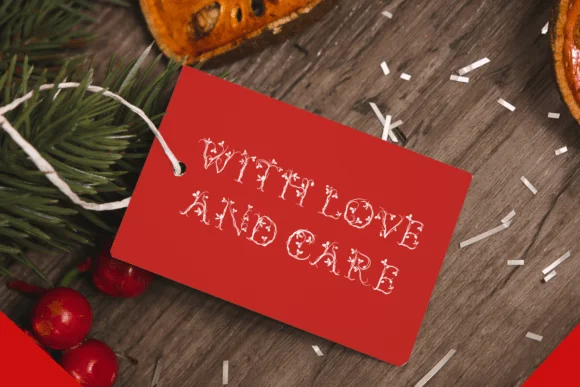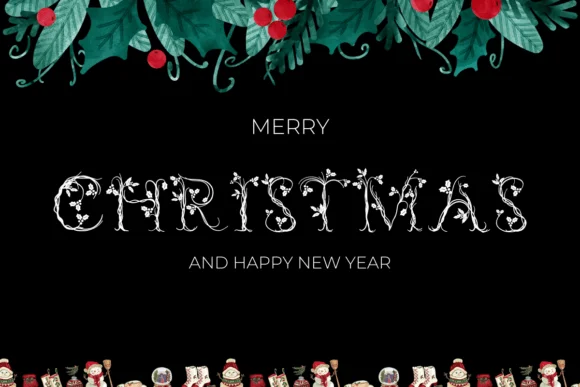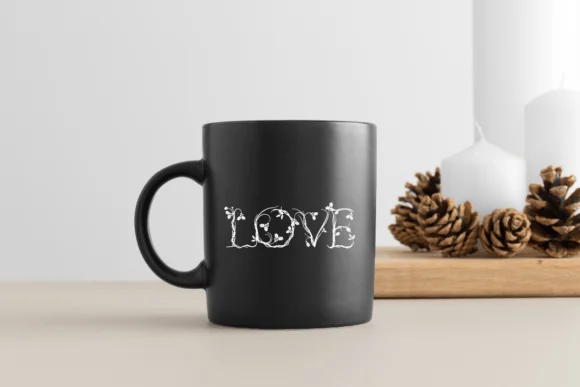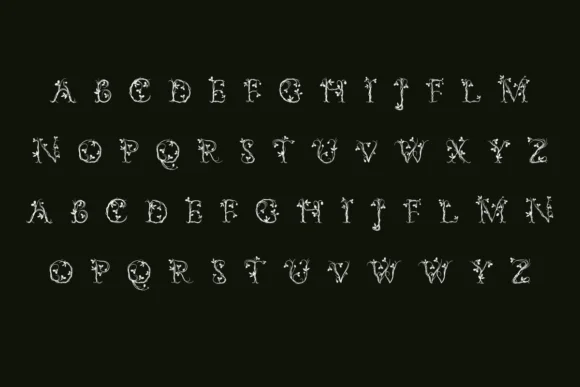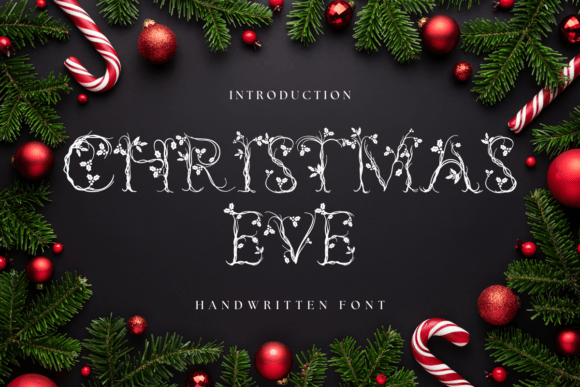
Christmas Eve Font
This atmospheric font is perfect for Christmas Eve candlelight services, midnight Christmas celebrations, last-minute holiday preparations, Christmas Eve family traditions, nocturnal Christmas storytelling, evening Christmas concerts, twilight holiday gatherings, Christmas Eve dinner menus, late-night Christmas activities, and serene Christmas Eve messaging.
Christmas Eve Font is exciting because it embodies the sacred stillness and profound anticipation that fills the air on the most magical night of the year, when time seems suspended between preparation and celebration. The font features hushed, reverent letterforms with gentle twilight qualities that capture the peaceful silence of Christmas Eve evening, incorporating delicate curves and soft edges that mirror the quiet excitement of families gathering for their most treasured holiday traditions. Each character showcases the contemplative beauty of a night filled with wonder, featuring subtle details and dreamy flourishes that reflect the ethereal glow of candles flickering in windows and the gentle snowfall that often graces this holy evening. The design perfectly captures that precious moment when all the world holds its breath, waiting for Christmas morning to arrive.
The Christmas Eve Font family includes reverent style variations: Regular, Bold, Light, Silent, and Holy versions. The collection features special evening elements including candlelight accents, starry details, peaceful flourishes, and serene ornamental touches. Additional components include twilight borders, silent frames, contemplative decorations, and sacred ornamental designs that enhance the font's Christmas Eve appeal and create cohesive peaceful holiday themes.
Churches and contemplative celebrants will find Christmas Eve Font to be a perfect tool for creating meaningful communications that honor the sacred tradition and peaceful beauty of Christmas Eve observations. This reverently crafted font transforms ordinary Christmas Eve text into meditative expressions that capture the profound significance and quiet wonder of this most holy night.
The typeface includes comprehensive character support with contemplative styling that maintains excellent readability while conveying the peaceful reverence and sacred anticipation of Christmas Eve celebrations. The font's serene design ensures beautiful results across both intimate family traditions and community Christmas Eve services.
Perfect for churches, families observing Christmas Eve traditions, contemplative Christmas celebrations, and sacred holiday communications, this font delivers peaceful visual impact that communicates reverence, anticipation, and the profound spiritual beauty that makes Christmas Eve the most sacred and anticipation-filled night of the entire Christmas season.